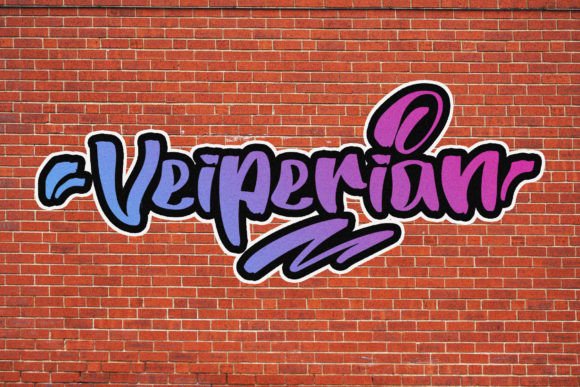
Veiperian Font: Unleashing the Urban Energy in Your Designs
In the world of typography, fonts play a crucial role in conveying the tone and personality of a design. For those looking to add a touch of urban grit and rebellious spirit to their projects, the Veiperian font is an excellent choice. This vibrant graffiti font is pulsating with energy, making it perfect for designs that require a bold statement. In this article, we’ll dive into the world of Veiperian font, exploring its features, uses, and benefits.
What is Veiperian Font?
Veiperian is a vibrant graffiti font that captures the essence of street art culture. Its bold strokes and dynamic letterforms are designed to make a statement, injecting a rebellious spirit and edgy flair into any project. The font’s unique design is inspired by the urban landscape, making it ideal for posters, album covers, and urban-themed designs.
Benefits of Using Veiperian Font
So, why choose Veiperian font for your designs? Here are some benefits that make it an excellent choice:
- Urban Energy: Veiperian font is pulsating with urban energy, making it perfect for designs that require a bold and edgy look.
- Rebellious Spirit: The font’s graffiti-inspired design injects a rebellious spirit into any project, making it ideal for designs that require a bold statement.
- Versatility: Veiperian font is versatile and can be used for a variety of design projects, including posters, album covers, and urban-themed designs.
- Unique Design: The font’s unique design sets it apart from other fonts, making it an excellent choice for designers looking to add a touch of personality to their designs.
Uses of Veiperian Font
Veiperian font is ideal for a variety of design projects, including:
- Posters: The font’s bold strokes and dynamic letterforms make it perfect for posters that require a bold statement.
- Album Covers: Veiperian font is an excellent choice for album covers, adding a touch of urban grit and rebellious spirit to music designs.
- Urban-Themed Designs: The font’s graffiti-inspired design makes it ideal for urban-themed designs, including branding, packaging, and advertising.
Tips for Using Veiperian Font
Here are some tips for using Veiperian font in your designs:
- Use it boldly: Veiperian font is designed to make a statement, so use it boldly and don’t be afraid to experiment with different sizes and colors.
- Pair it with contrasting fonts: Pair Veiperian font with contrasting fonts to create visual interest and add depth to your designs.
- Experiment with colors: The font’s graffiti-inspired design makes it perfect for bright and bold colors, so experiment with different color schemes to find the perfect fit.
In conclusion, Veiperian font is an excellent choice for designers looking to add a touch of urban grit and rebellious spirit to their designs. Its bold strokes and dynamic letterforms capture the essence of street art culture, making it perfect for posters, album covers, and urban-themed designs. With its unique design, versatility, and bold statement, Veiperian font is sure to make a statement in any design project.
- What is Veiperian font? Veiperian font is a vibrant graffiti font that captures the essence of street art culture.
- What is Veiperian font used for? Veiperian font is ideal for posters, album covers, and urban-themed designs.